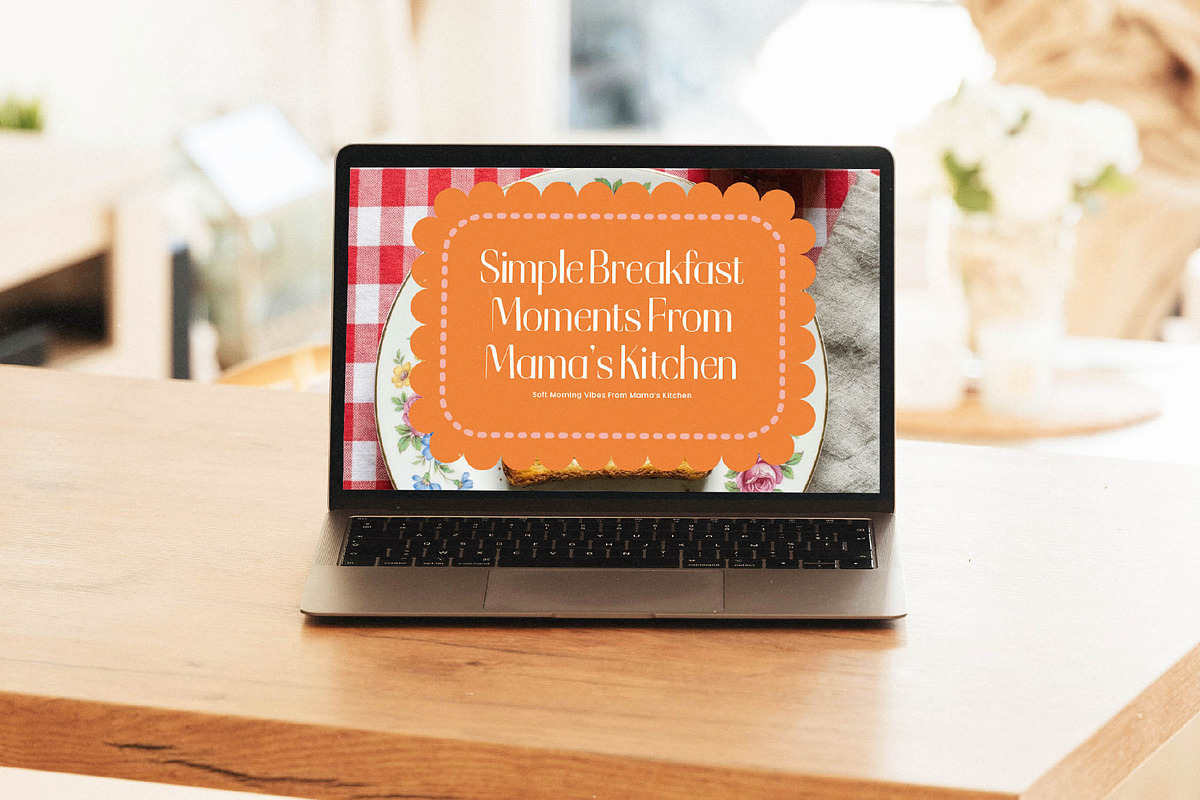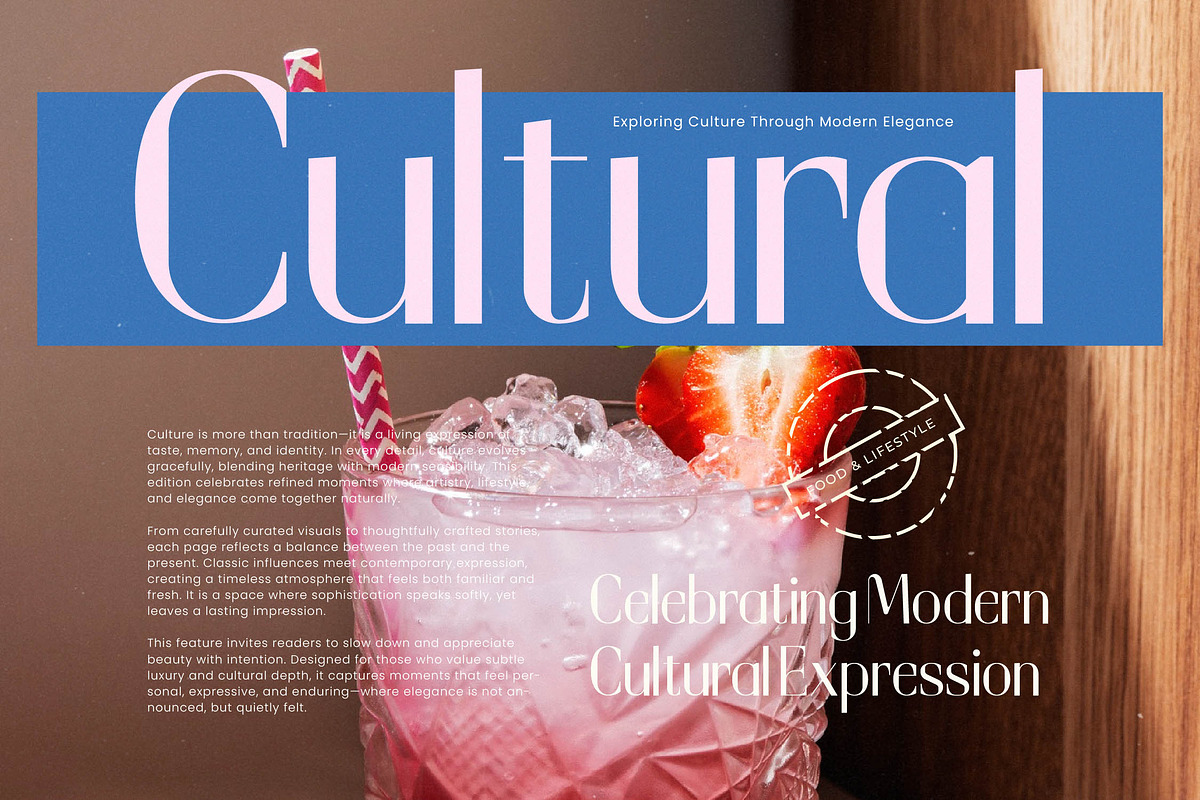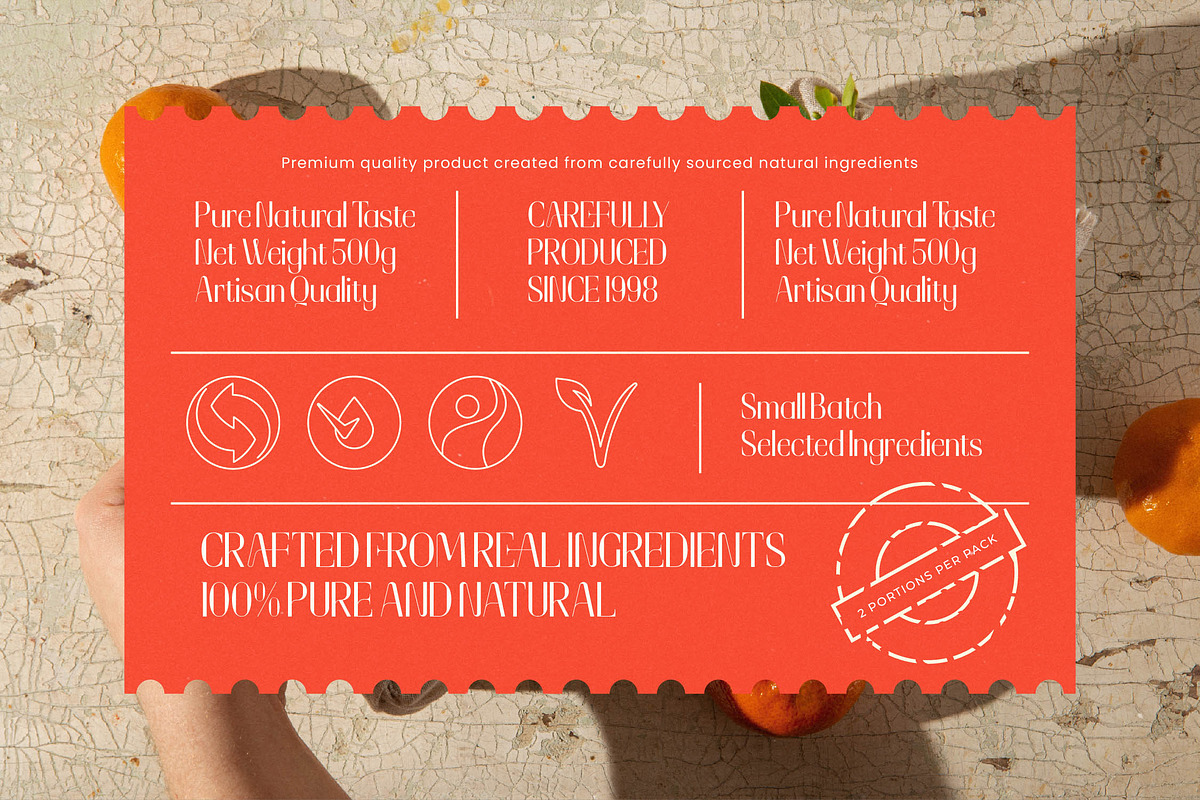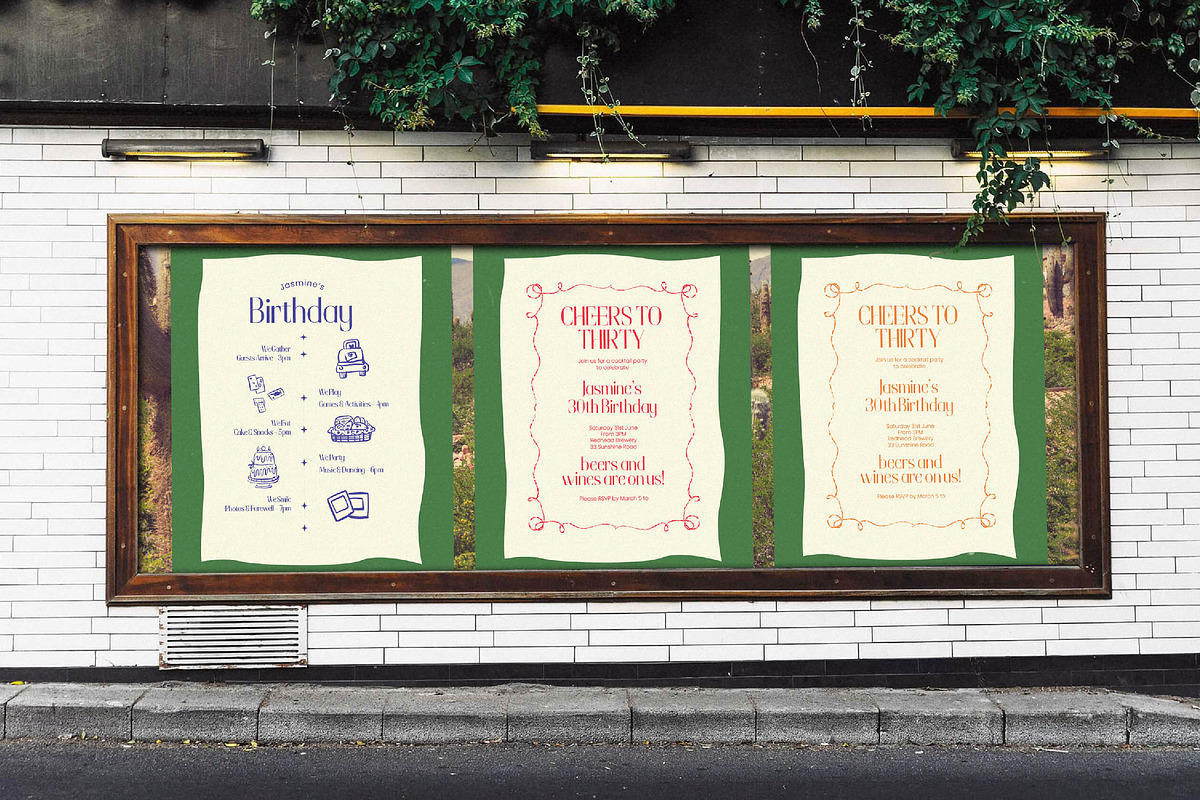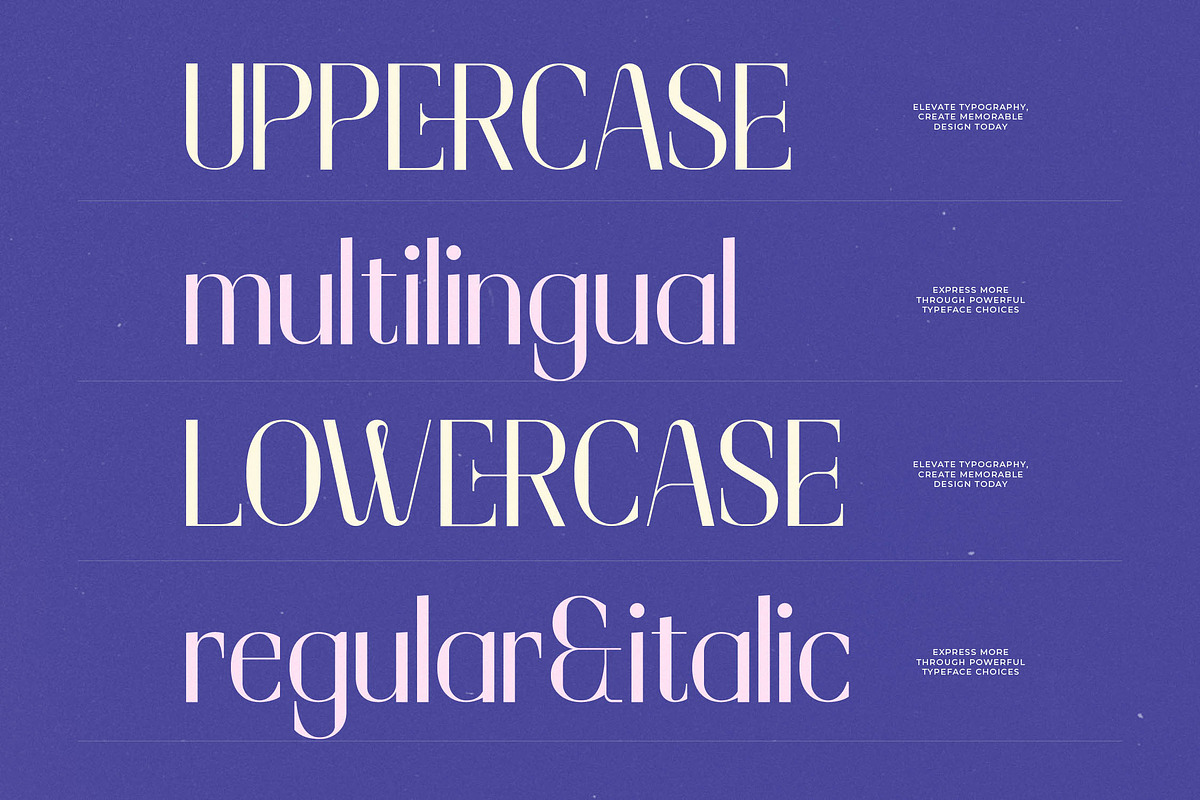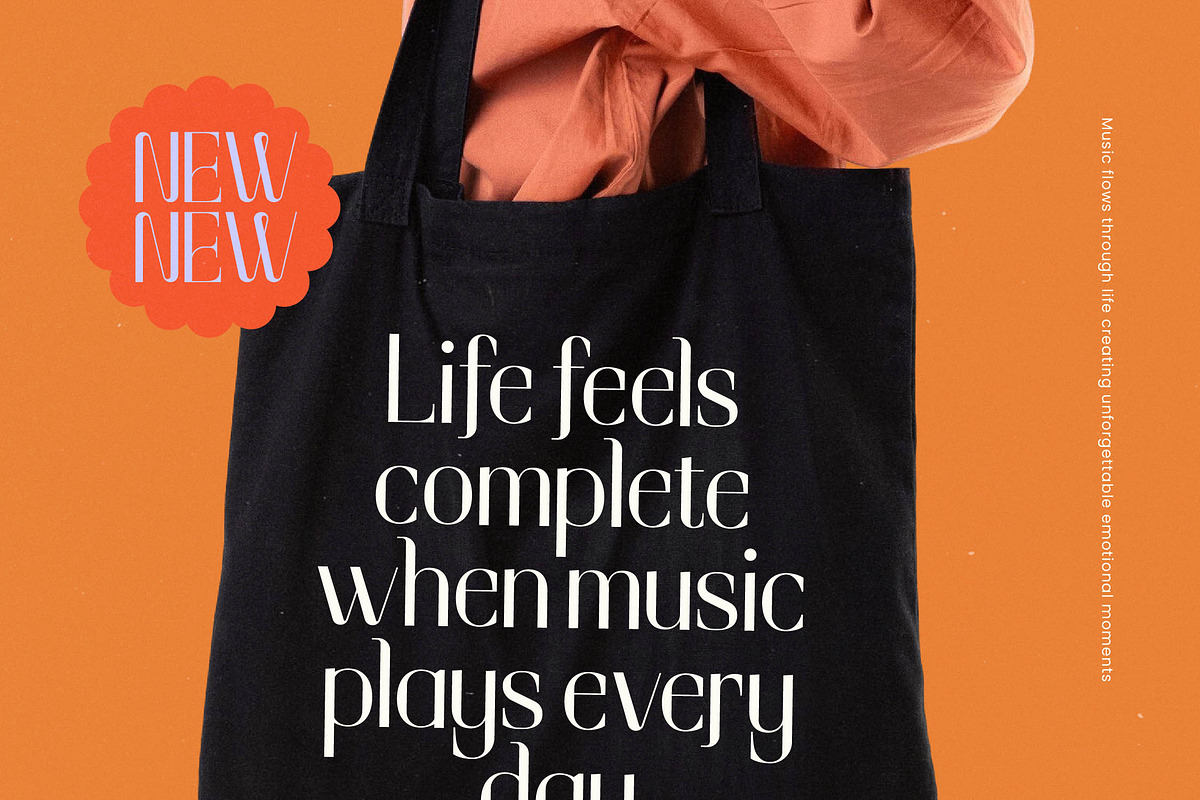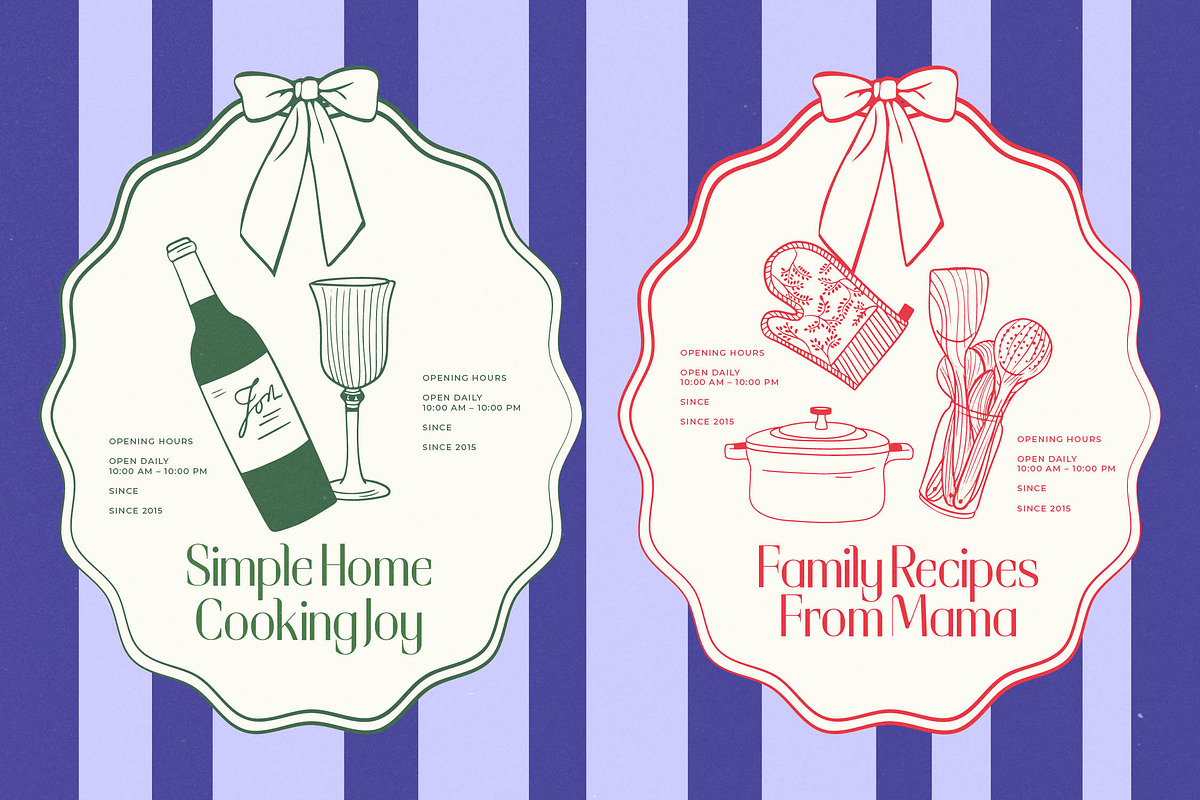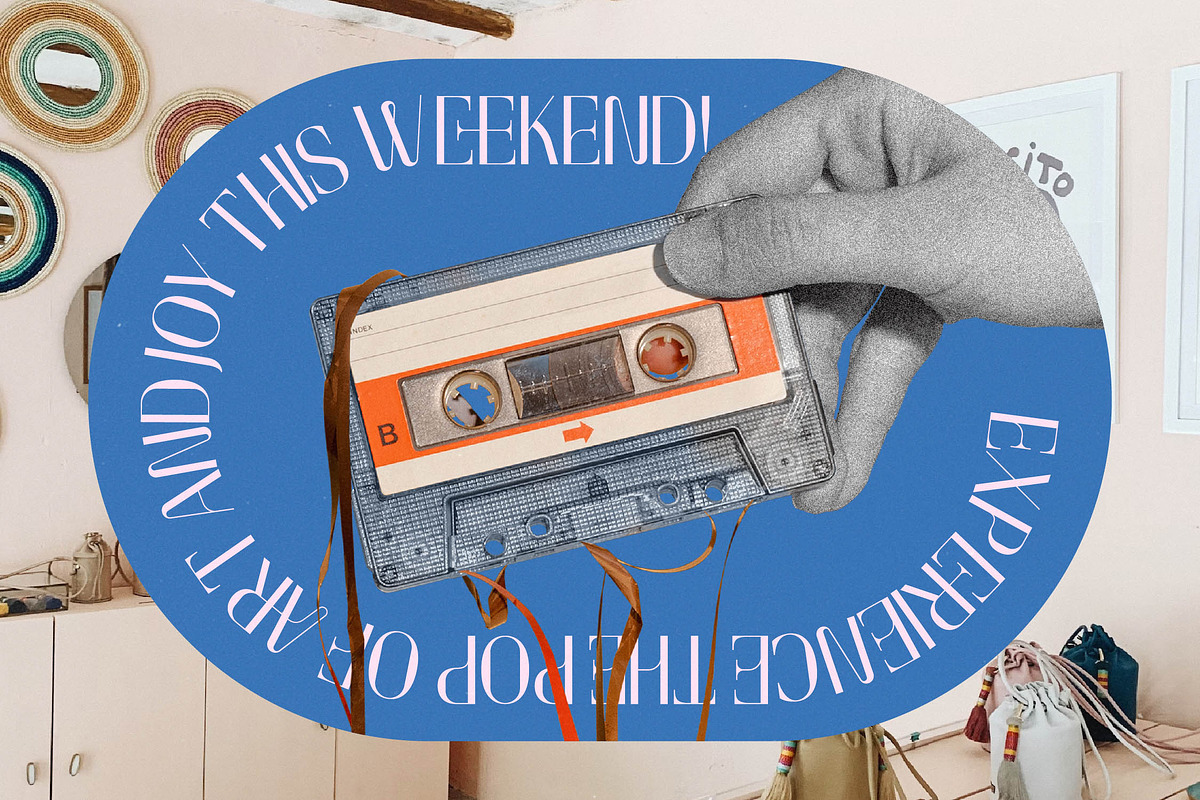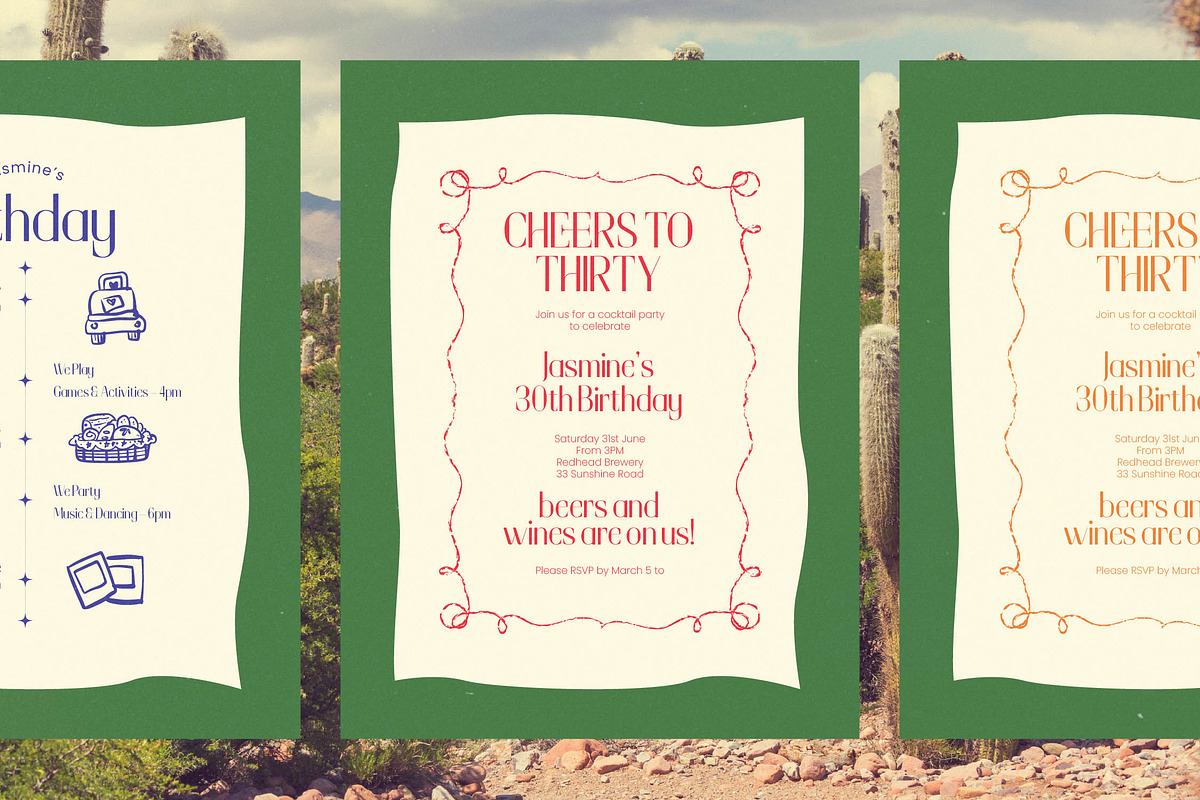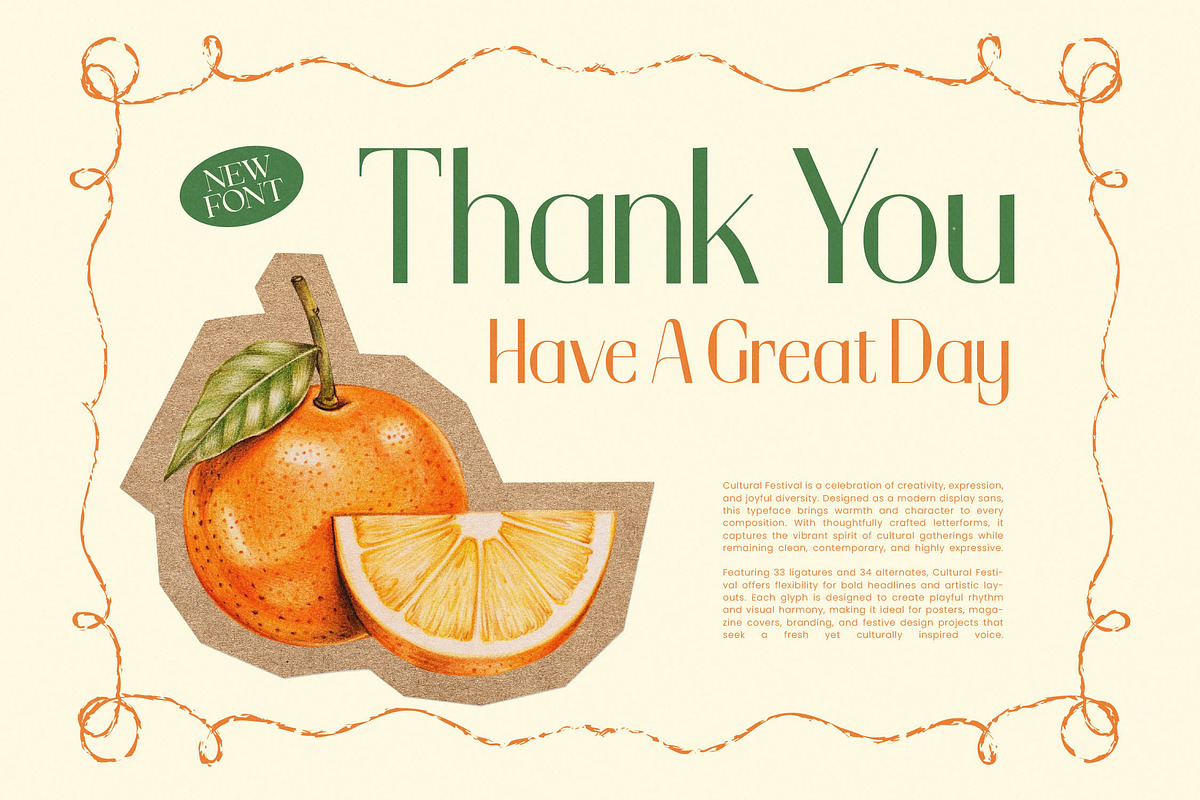
Cultural Festival Modern Serif
Experience the vibrant intersection of tradition and modernity with Cultural Festival, a typeface designed to breathe life into every creative endeavor. This font captures a celebratory spirit, blending timeless elegance with a contemporary edge that commands attention instantly.
Inspired by the colorful energy of global heritage events and the organic warmth of hand-crafted posters, this typeface draws from mid-century editorial layouts and botanical illustrations. It reflects an atmosphere of joy and sophisticated storytelling, making every word feel like a piece of curated art.
As a modern serif display, this typeface delivers a luxury typography experience that balances delicate curves with sharp, intentional lines. It functions as a high-contrast serif that offers a distinct editorial font quality, ensuring your projects leave a lasting branding impact through its unique visual rhythm.
Perfectly aligned with the current modern serif trend, this typeface meets the demand for editorial display fonts that feel both nostalgia-driven and futuristic. It stands out in the world of character-driven typography, providing designers with a tool that feels bespoke and deeply authentic in a digital-first market.
This versatile face is a premier choice for high-end logo design and comprehensive branding systems that require a touch of class. Whether it is used for sophisticated editorial layouts, vibrant product packaging, romantic wedding stationery, or bold fashion lookbooks, it adapts seamlessly to diverse creative visions.
Unlock creative freedom with a comprehensive set of ligatures and alternates that allow for custom-tailored headlines and unique flourishes. The font includes expansive multilingual support and a full range of international characters, ensuring your message resonates globally across various languages and cultures.
Numerals
Punctuations (OpenType Standard)
Accents (Multilingual Characters)
Ligatures and Alternative Style Stylistic Set